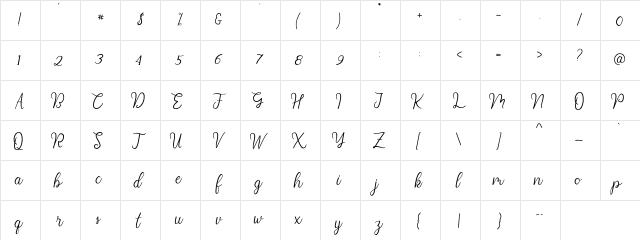
Diana_Script Regular
Design Context for Diana_Script Typeface
Diana_Script flows with the natural rhythm of handwritten lettering, making it ideal for designs that call for warmth and personal expression.
Font Pairing: Combine Diana_Script with a simple geometric sans for maximum contrast — the tension between flowing curves and clean structure is a classic typographic pairing.
Pro Tip: Use Diana_Script for short runs of text — names, titles, or taglines. Extended body copy in script faces tires the eye quickly.